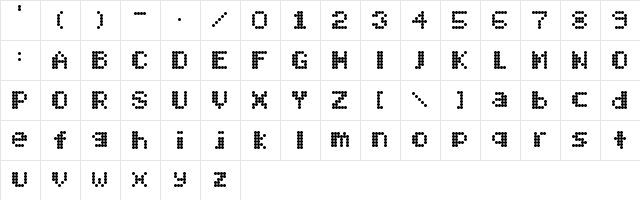
Mobitec 6x6 Regular
Design Context for Mobitec 6x6 Typeface
Mobitec 6x6 is a composed and adaptable typeface that performs quietly and consistently across a wide range of design contexts.